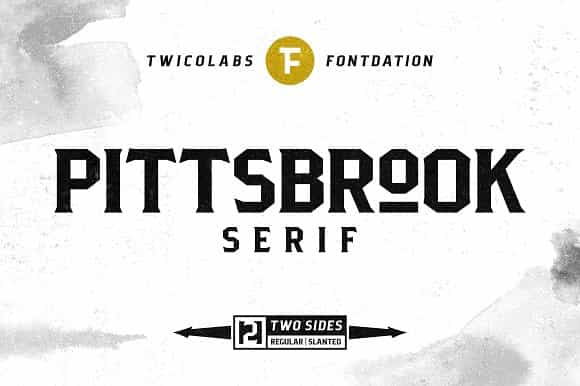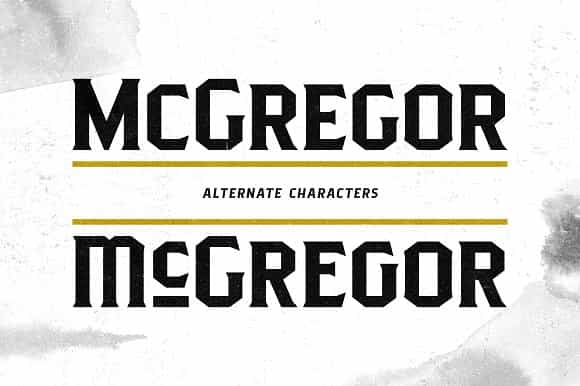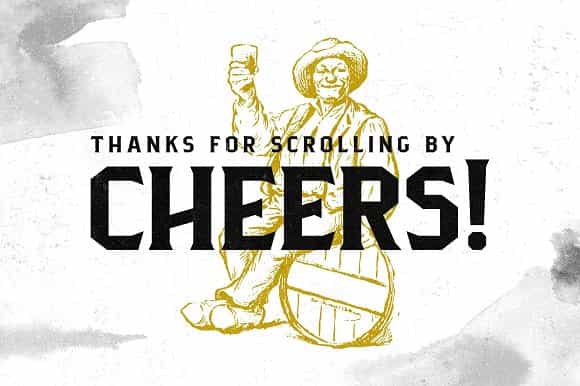
Introducing Pittsbrook Font. A classic typeface that was inspired by the letters used in old advertisement and packagings. Its stiff form makes you feel tough, sharp and blocky. No curves were hurt in the making of this typeface. It is well suitable for any classic/vintage design project, such as E-Sport logo, liquor/food label, packaging, headline, space-filler and logotype.